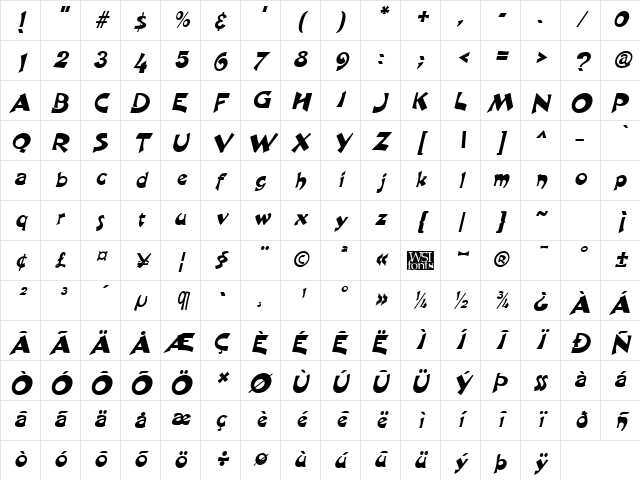
Harquil is a composed and adaptable typeface that performs quietly and consistently across a wide range of design contexts. The slanted form adds forward momentum and visual energy.